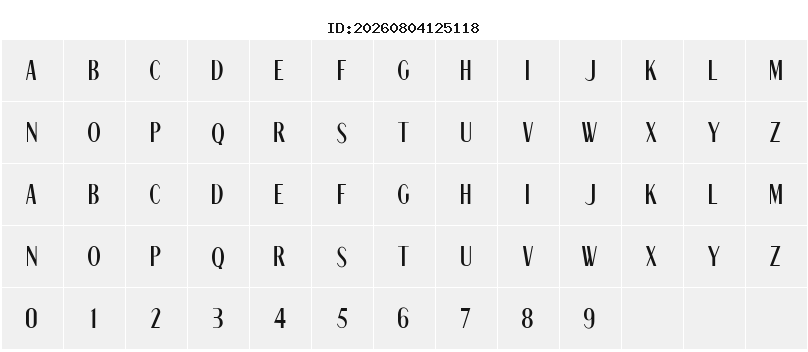
• Font Name: Nizza
• Full Font Name: Nizza Regular
• Designer: HENRIavecunK
About Nizza.ttf
Nizza.ttf is a modern, elegant sans-serif font designed for ultimate readability and visual harmony. Perfect for branding, headlines, web design, and print materials.